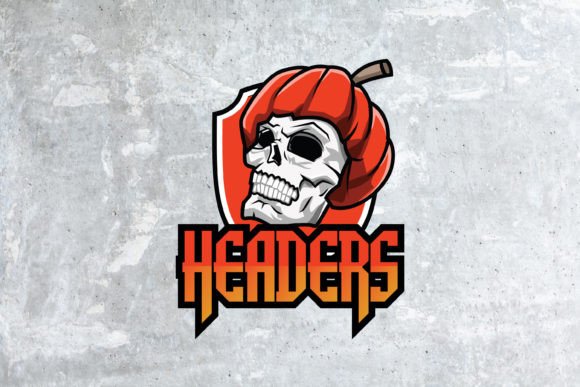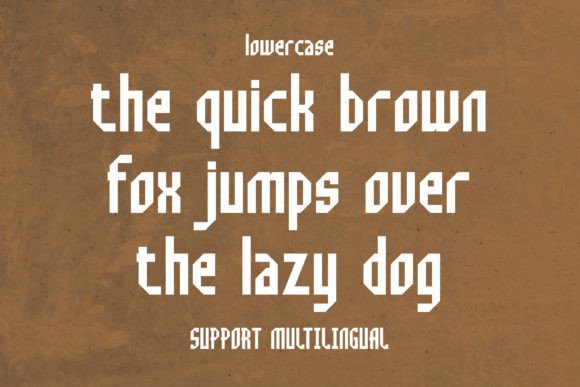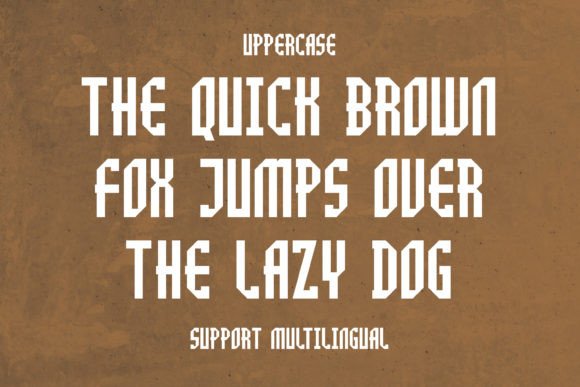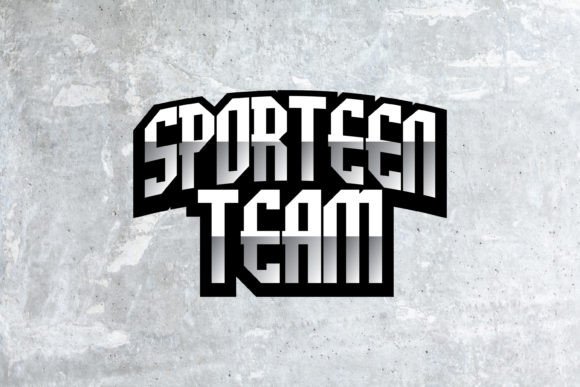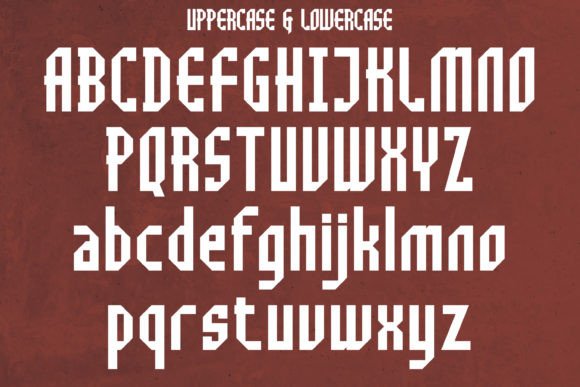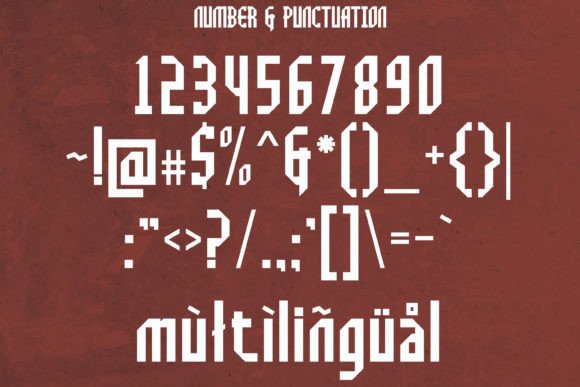
Bredals Font: Elevate Your Designs with a Modern and Fresh Display Font
In the world of typography, a font can make or break a design. With the right font, you can convey a message, evoke an emotion, or simply add a touch of personality to your project. If you’re a designer or crafter looking for a modern and fresh display font to take your designs to the next level, look no further than Bredals Font. In this article, we’ll dive into the features and benefits of Bredals, and explore how it can add a special contemporary touch to your designs.
What is Bredals Font?
Bredals Font is a modern and fresh display font designed to make a statement. Its uniquely shaped characters are carefully crafted to add a touch of sophistication and elegance to any design. Whether you’re working on a branding project, a website, or a craft project, Bredals is the perfect choice. Its clean lines, subtle curves, and contemporary feel make it an ideal font for designers and crafters who want to create something truly special.
Key Features of Bredals Font
So, what sets Bredals Font apart from other display fonts on the market? Here are some of its key features:
- Modern and Fresh Design: Bredals Font boasts a modern and fresh design that’s perfect for designers and crafters who want to create something contemporary and stylish.
- Uniquely Shaped Characters: Each character in Bredals is uniquely shaped, adding a touch of personality and whimsy to your designs.
- PUA Encoded: Bredals Font is PUA (Private Use Area) encoded, which means you can access all the glyphs and ligatures with ease. This makes it easy to use and customize the font to suit your needs.
Benefits of Using Bredals Font
So, why should you choose Bredals Font for your next design project? Here are some of the benefits of using Bredals:
- Adds a Contemporary Touch: Bredals Font adds a special contemporary touch to any design, making it perfect for designers and crafters who want to create something modern and stylish.
- Versatile: Bredals Font is versatile and can be used for a wide range of design projects, from branding and advertising to websites and craft projects.
- High-Quality: Bredals Font is a high-quality font that’s designed to produce crisp and clear results, even at large sizes.
- Easy to Customize: With PUA encoding, Bredals Font is easy to customize, allowing you to access all the glyphs and ligatures with ease.
Who is Bredals Font for?
Bredals Font is perfect for designers and crafters who want to add a touch of modernity and sophistication to their designs. Here are some examples of who can benefit from using Bredals Font:
- Graphic Designers: Bredals Font is perfect for graphic designers who want to create stunning visual effects for their clients.
- Web Designers: Bredals Font can be used to create beautiful and modern website designs that stand out from the crowd.
- Crafters: Bredals Font is ideal for crafters who want to add a personal touch to their projects, such as handmade cards, scrapbooking, and DIY crafts.
- Small Business Owners: Bredals Font can be used by small business owners who want to create a professional and modern brand identity.
In conclusion, Bredals Font is a modern and fresh display font that’s perfect for designers and crafters who want to add a special contemporary touch to their designs. With its uniquely shaped characters, PUA encoding, and ease of use, Bredals Font is an ideal choice for a wide range of design projects. Whether you’re a graphic designer, web designer, crafter, or small business owner, Bredals Font is a great addition to your font library.